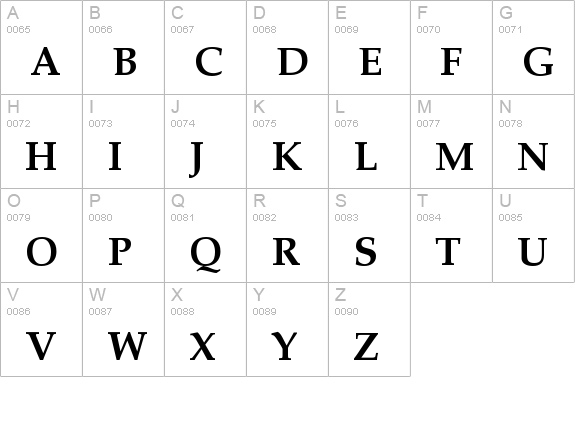
Criteria OldStyle SSi Bold Old Style Figures is a strong, high-contrast variant in the Criteria typeface family \xE2\x80\x94 well suited to headlines, attention-grabbing titles, and strong calls-to-action.
Criteria OldStyle SSi Bold Old Style Figures is a classic and elegant font that exudes sophistication and charm. With its bold and distinctive old style figures, this font is perfect for adding a touch of vintage flair to your designs. The timeless appeal of Criteria OldStyle SSi Bold Old Style Figures makes it versatile for various projects, from invitations and logos to packaging and branding. The best part is that Criteria OldStyle SSi Bold Old Style Figures is available for free download at FontsMarket.com. This means you can easily access and add this beautiful font to your collection without any cost. Don't miss out on the opportunity to elevate your designs with the timeless beauty of Criteria OldStyle SSi Bold Old Style Figures. Download it now and start creating stunning visuals that stand out from the rest.